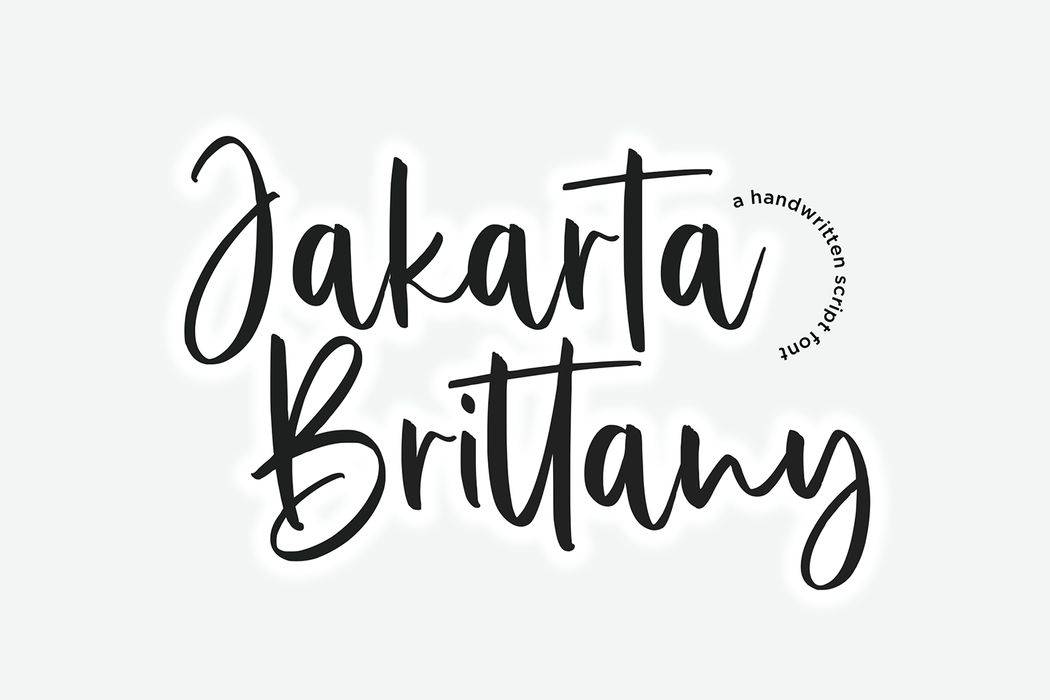
Jakarta Brittany is a playful and informal script font featuring a lively handwritten style with varied stroke widths and smooth curves. Its tall, narrow letterforms and high x-height create a friendly and approachable feel, making it perfect for casual branding, invitations, and creative projects that want to convey warmth and personality. This font’s energetic yet readable design works well for headlines and logos where a fun, personal touch is desired.
Jakarta Brittany Font
About Jakarta Brittany Font